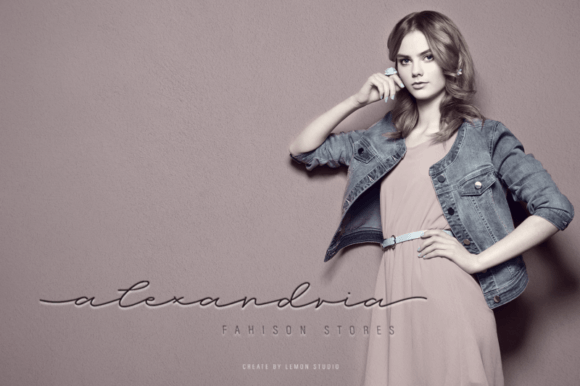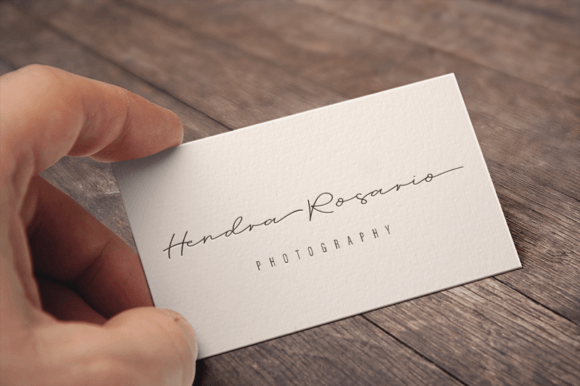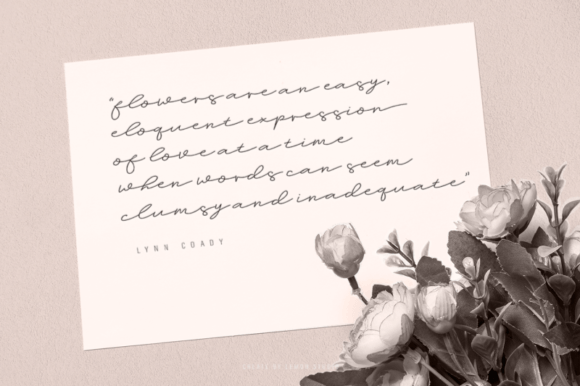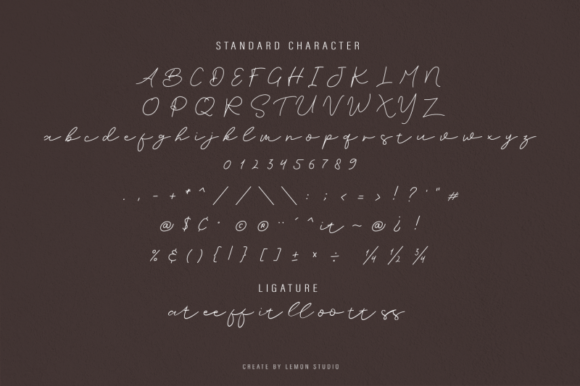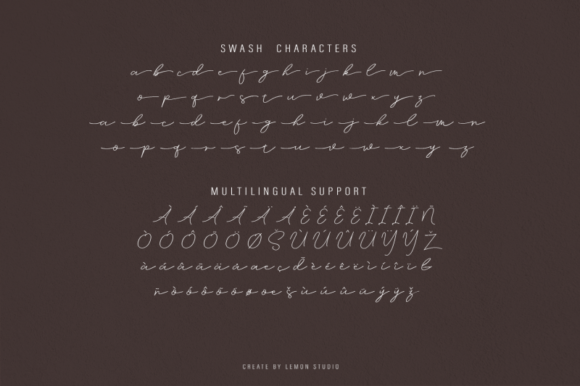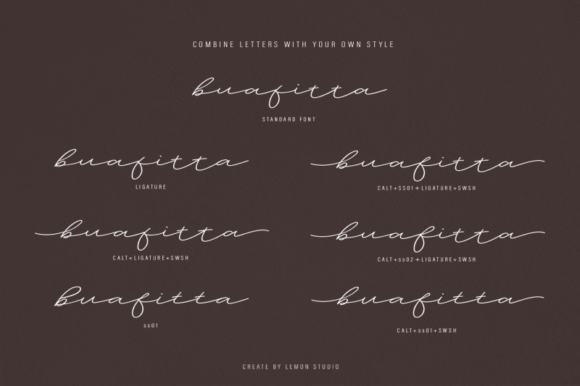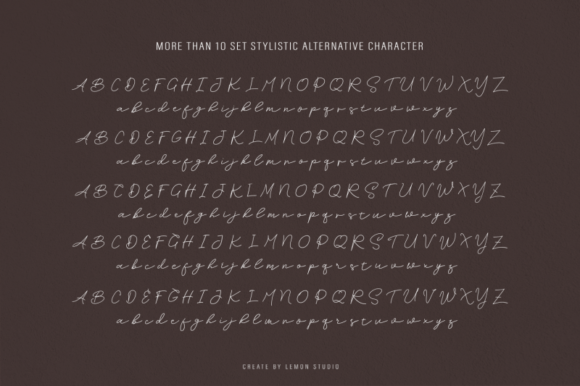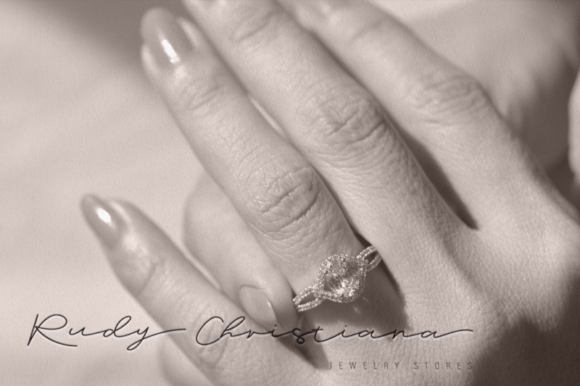
My Bellezza Font
My Bellezza Font Download – Thin Fashionable Script Typeface
The My Bellezza Font download is a thin-lettered, fashionable script typeface that adds luxury and elegance to your projects. With its stylish design and carefully crafted strokes, this font works perfectly for both personal and professional creations. Because it is PUA encoded, it gives you easy access to its glyphs and ligatures, adding more creative freedom.
Elegant and Fashionable Style
My Bellezza features thin, smooth lines with a modern rhythm. As a result, it brings sophistication and charm to your text. In addition, its fashionable design ensures your work has a contemporary yet timeless look.
Wedding invitations, greeting cards, and thank-you notes look stunning with this font. It creates a romantic and stylish tone, helping your projects stand out. Therefore, it is an excellent choice for meaningful stationery.
My Bellezza Font Download for Logos and Branding
The My Bellezza Font download is also ideal for logos, product packaging, and brand campaigns. Its thin strokes and elegant design make brands appear luxurious and professional.
Posters and Creative Projects
From posters and digital artwork to banners and promotional material, this font adapts seamlessly. Its balance of clarity and style makes it a strong option for both print and digital formats.
The My Bellezza Font download is stylish, flexible, and simple to use. In other words, it fits well into personal creative projects as well as professional branding. Finally, it is a fashionable script font that adds elegance and luxury to every design.